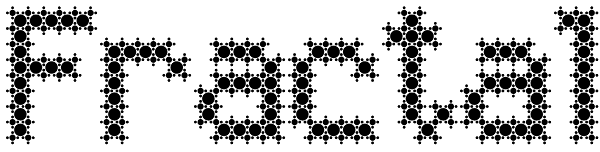
Fractal
Fractal is a font whose Hausdorff-Besicovitch dimension is greater than its typographic dimension. Big is better. To be used at display sizes larger than 200pts.